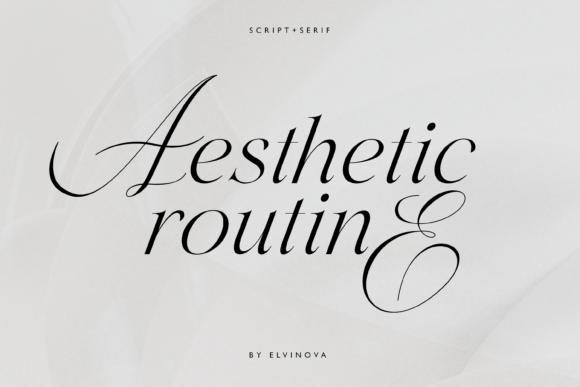
I’ll never forget the countless hours I spent scrolling through font libraries, searching for the perfect typeface for a client’s wedding invitation. The project required a level of sophistication and elegance that seemed impossible to achieve. That’s when I stumbled upon Aesthetic Routine Duo, a handwritten font duo that changed the game. In this article, I’ll share my experience with this exquisite font, its capabilities, and how to make the most of it in your designs.
First Impressions: What I Love About Aesthetic Routine Duo
Aesthetic Routine Duo is more than just a font – it’s an experience. Here are the aspects that make it truly special:
- ✨ Elegant strokes and fluid curves that exude refinement
- ✅ Perfect for personalized branding, wedding invitations, and bespoke stationery
- 💫 Supports OpenType features, allowing for creative exploration
- 📝 Includes a range of glyphs and stylistic alternates for added versatility
The Not-So-Perfect: A Few Quirks to Consider
While Aesthetic Routine Duo is an exceptional font, there are a few minor limitations to keep in mind:
- ⚠️ Limited language support, primarily suited for English and similar alphabets
The Story Behind Aesthetic Routine Duo
Aesthetic Routine Duo was crafted with passion and dedication by a talented type designer. Inspired by the beauty of handwritten scripts and the world of fine art, this font duo embodies the essence of elegance and refinement. Whether used for personal or commercial projects, Aesthetic Routine Duo is sure to leave a lasting impression.
| Author | elvinova |
| What type of projects is Aesthetic Routine Duo best suited for? | Aesthetic Routine Duo excels in projects requiring elegance and sophistication, such as personalized branding, wedding invitations, and bespoke stationery. |
| Does Aesthetic Routine Duo support OpenType features? | Yes, Aesthetic Routine Duo supports OpenType features, offering a range of stylistic alternates, glyphs, and other creative options. |